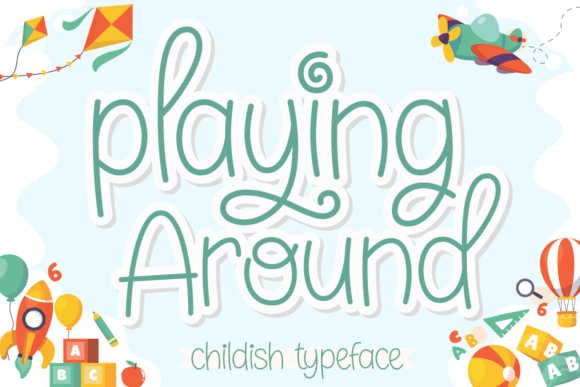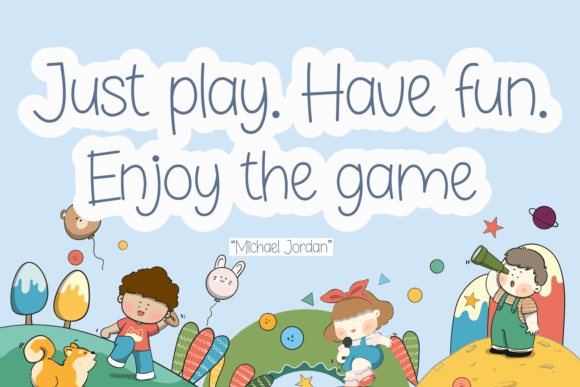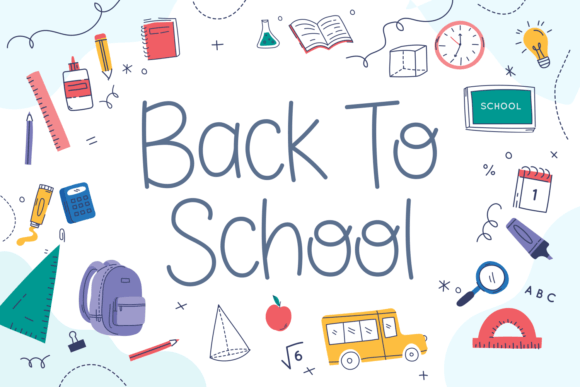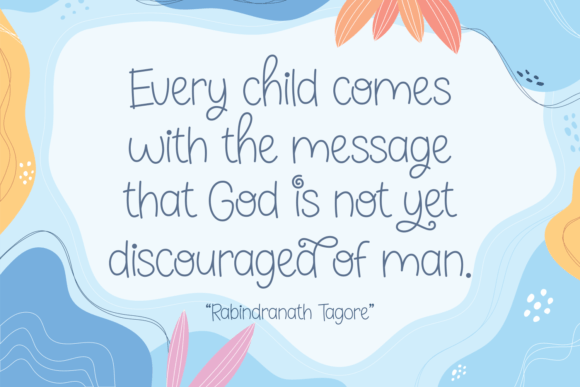
Playing Around Font
About Playing Around Font
“Playing Around” is a childish and easy-to-read display font that radiates impeccable friendliness. Crafted with a playful charm, this font is versatile and well-suited for various applications, whether it’s used in crafts, digital design, presentations, or creating greeting cards. It has the potential to become your favorite go-to font, bringing a delightful touch to your projects, no matter the occasion!
The friendly and approachable nature of “Playing Around” makes it an ideal choice for designs that require a touch of whimsy and joy. The easy-to-read display adds clarity to your text, ensuring that your message is conveyed with a sense of fun and accessibility.
In summary, “Playing Around” is more than just a font; it’s a creative tool that brings playful and friendly vibes to your designs. Its childish charm and easy readability make it a versatile choice for a range of occasions. Let “Playing Around” be the font that adds a delightful touch to your creative projects, making them memorable and enjoyable.